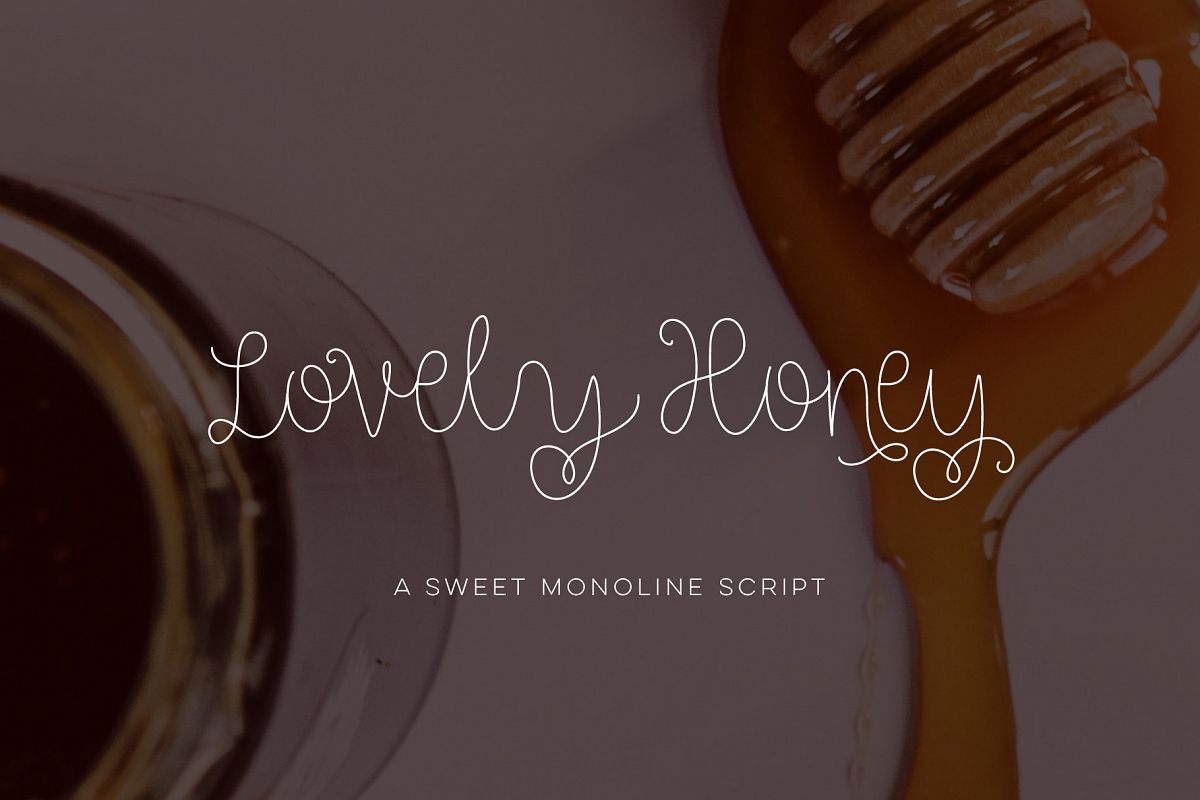
Lovely Honey
Super thin monoline script, perfect for crafting handwritten invitations. Should work nicely with silhouette, cricut and the brand new foil quill! Includes beginners, regular, endings, and alternates.